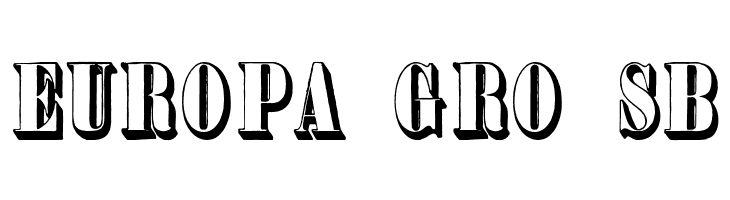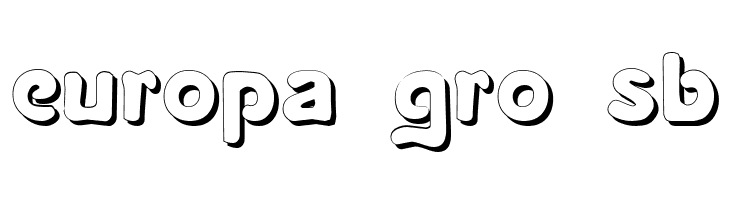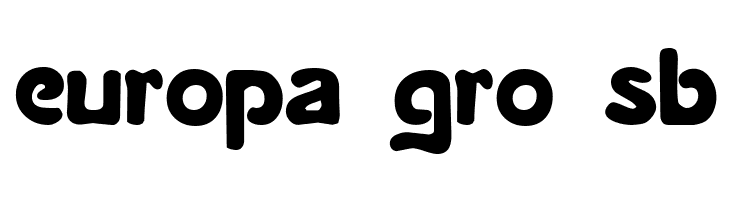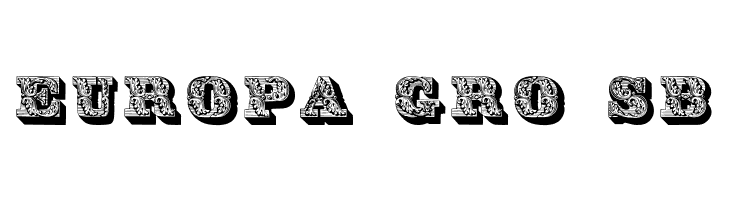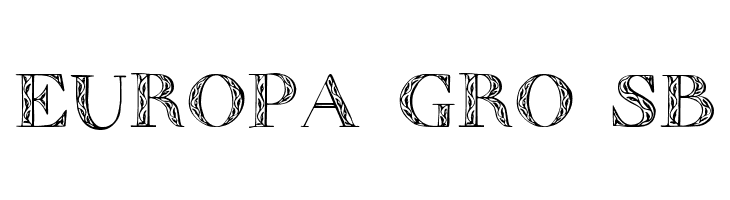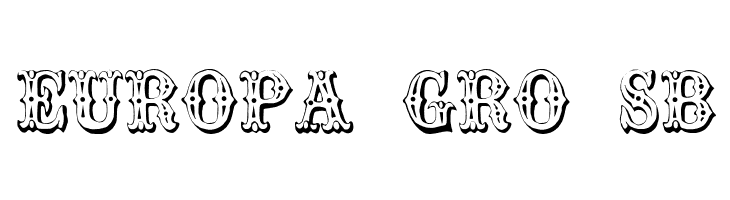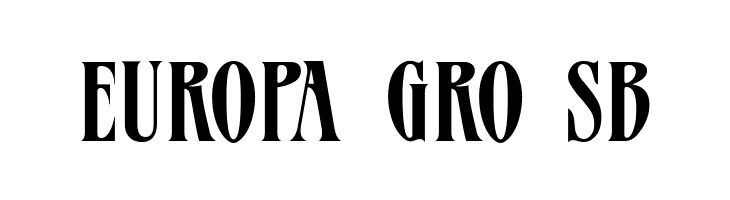
A bold, three-dimensional serif font with a striking and modern design.
A bold, playful font with a shadow effect for a three-dimensional look.
A bold, playful font with rounded edges and a vintage-modern appeal.
Ornate, shadowed font with intricate detailing and a vintage aesthetic.
An ornate and decorative font with intricate patterns and vintage elegance.
An ornate, decorative serif font with intricate patterns and a vintage flair.
An elegant serif font with high contrast and sharp serifs, blending classic and decorative styles.
A bold, decorative font with intricate patterns and a vintage flair.
A bold, high-contrast font with dynamic curves and elegant style.
A bold, shadowed font with a classic yet playful style.